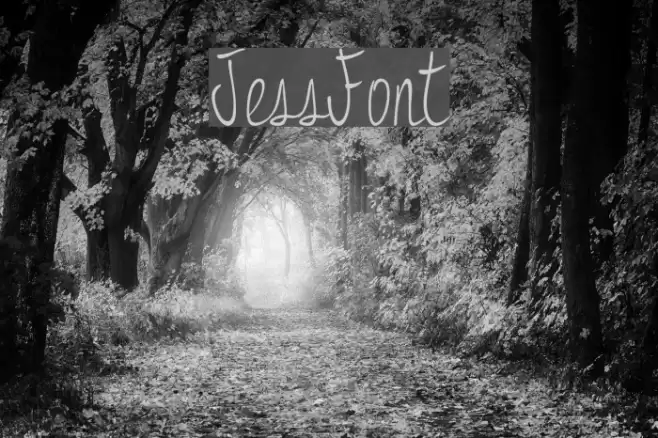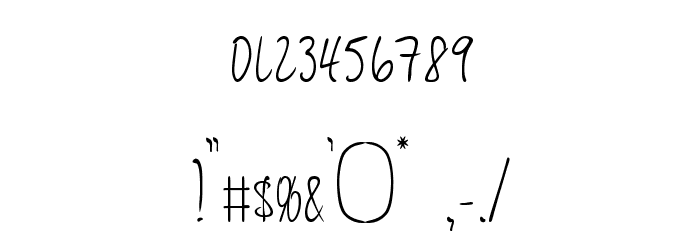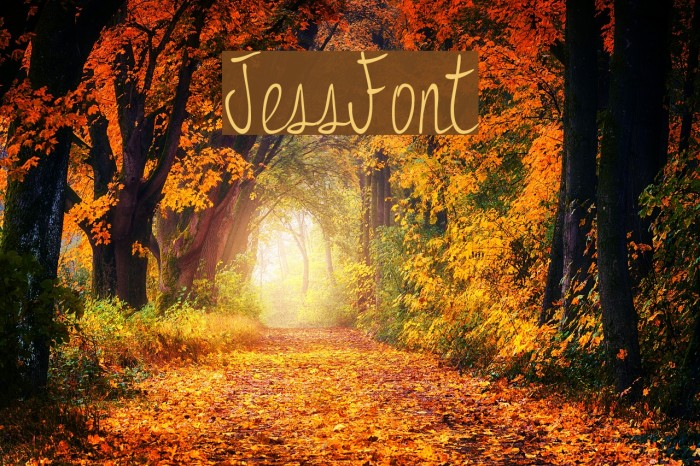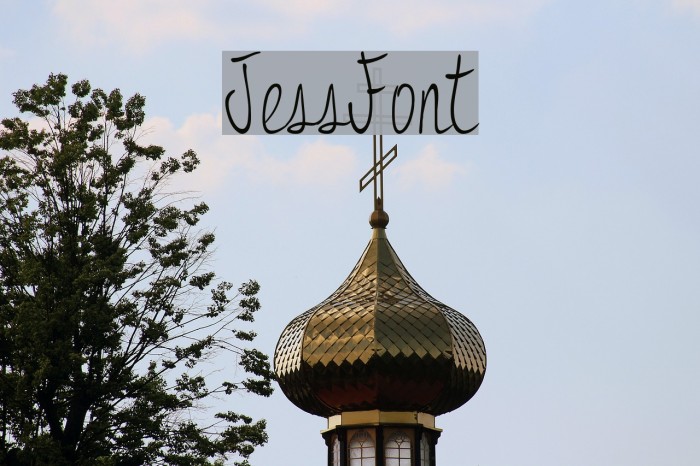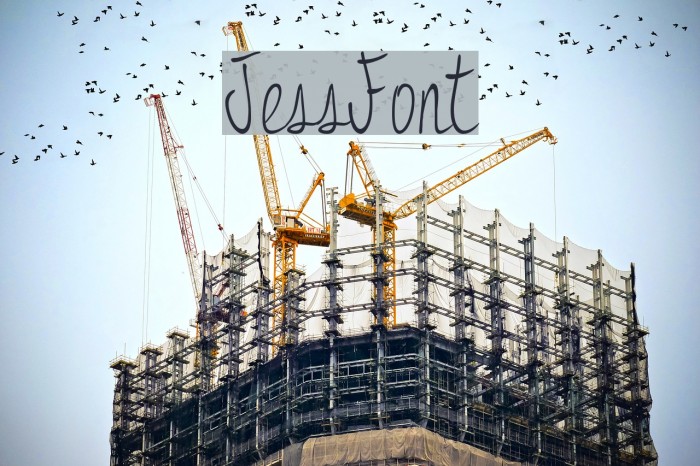
JessFont Font
JessFont Description
This font features a playful and casual handwritten style, characterized by its flowing, cursive-like strokes. The uppercase letters are tall and slightly narrow, with a whimsical flair that adds a touch of elegance. The lowercase letters maintain a consistent flow, enhancing readability while retaining a personal touch. Numbers are clear and distinct, matching the overall style. Special characters are creatively integrated, maintaining the font's cohesive look. The overall design is informal yet sophisticated, making it suitable for various creative applications.
A playful, handwritten font with a casual, cursive style from Uncategorized fonts.
- Overall Style: Casual, Playful